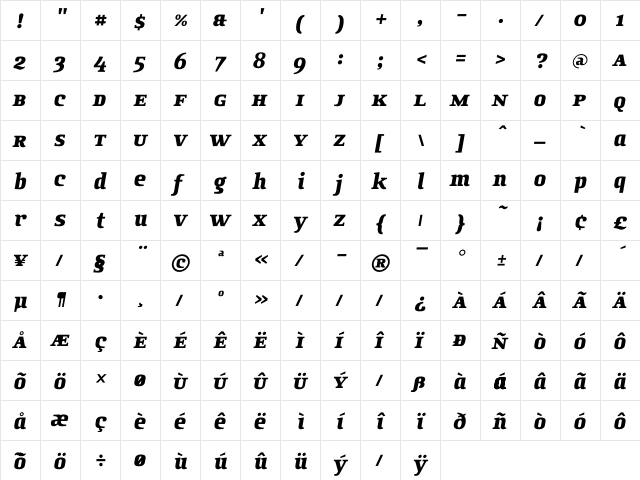
Anubis Italic
| Designer | Dino dos Santos |
Design Context for Anubis Typeface
Anubis offers clean, dependable letterforms without strong stylistic allegiance, making it a practical choice for designers who need flexibility. The slanted form adds forward momentum and visual energy.
Pro Tip: Use Anubis for emphasis, pull quotes, and subheadings where its slanted energy can add rhythm to the layout.